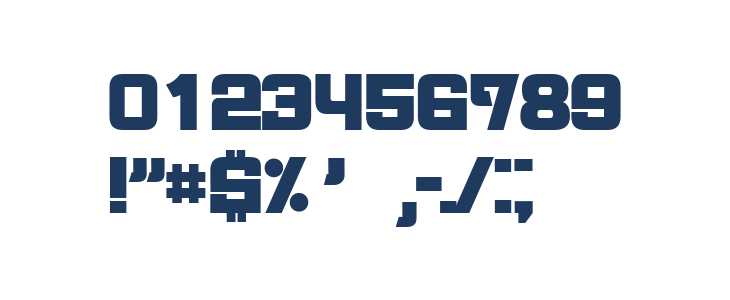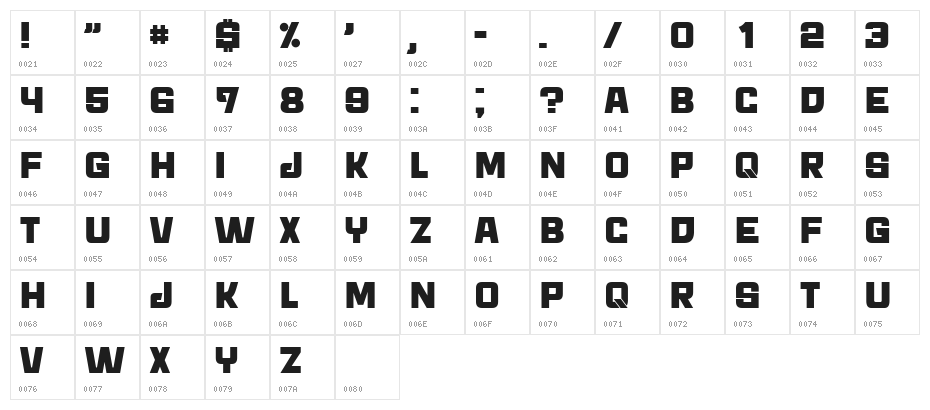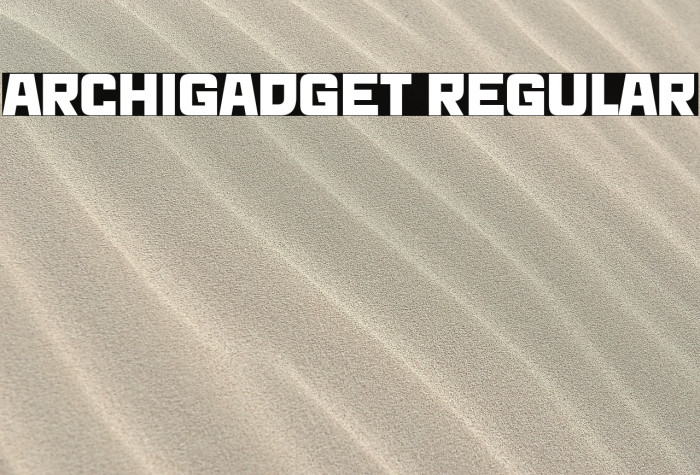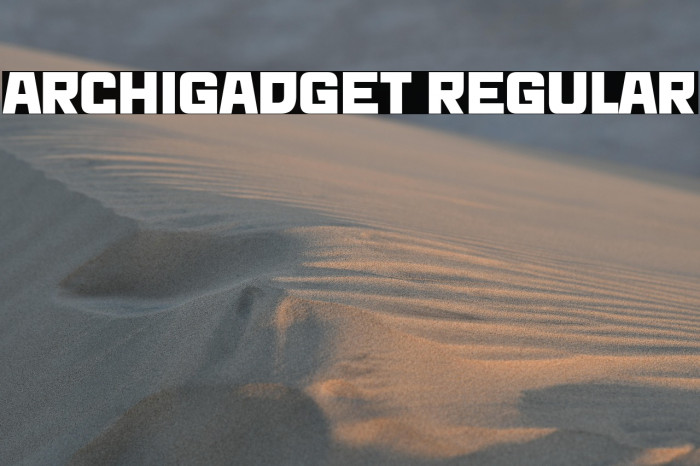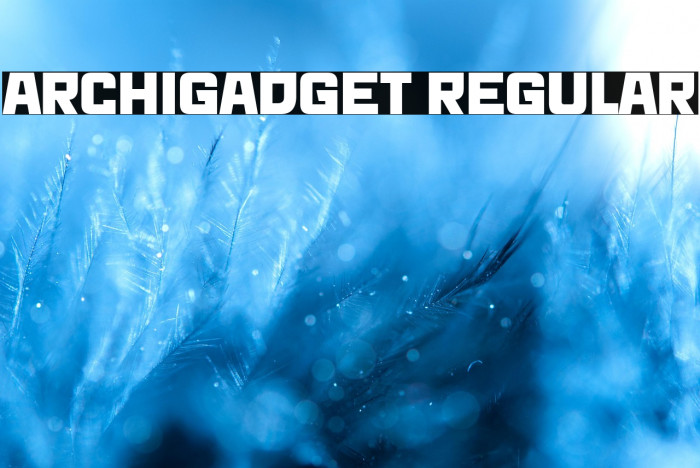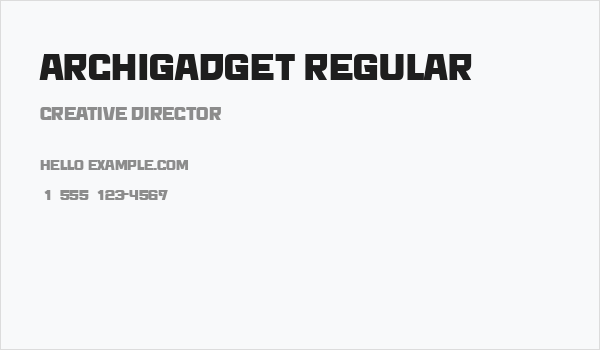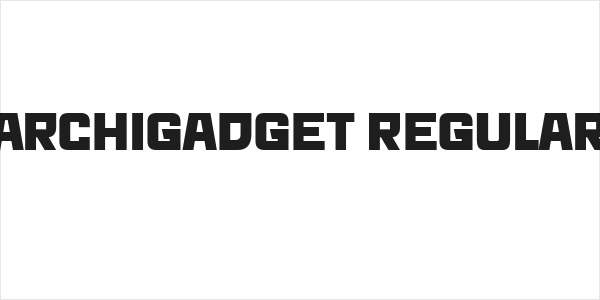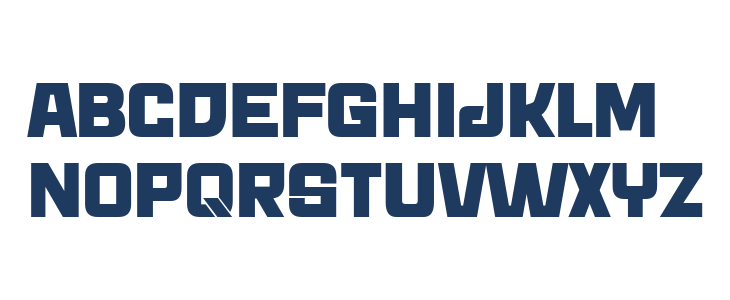
Archigadget Regular Font
Archigadget Regular Description
This font features a bold and geometric design, characterized by its strong, block-like appearance. The letters are uniformly thick, with sharp angles and straight lines that give it a modern and industrial feel. The uppercase letters are particularly striking, with a consistent height and width that create a sense of uniformity and strength. The numbers and special characters follow the same design principles, ensuring a cohesive look across all characters. This font is highly legible, making it suitable for various design applications where clarity and impact are essential.
| Use Case | Headlines, Logos, Signage |
| Proposed Projects | Ideal for branding, signage, posters, and any project requiring a strong visual impact. |